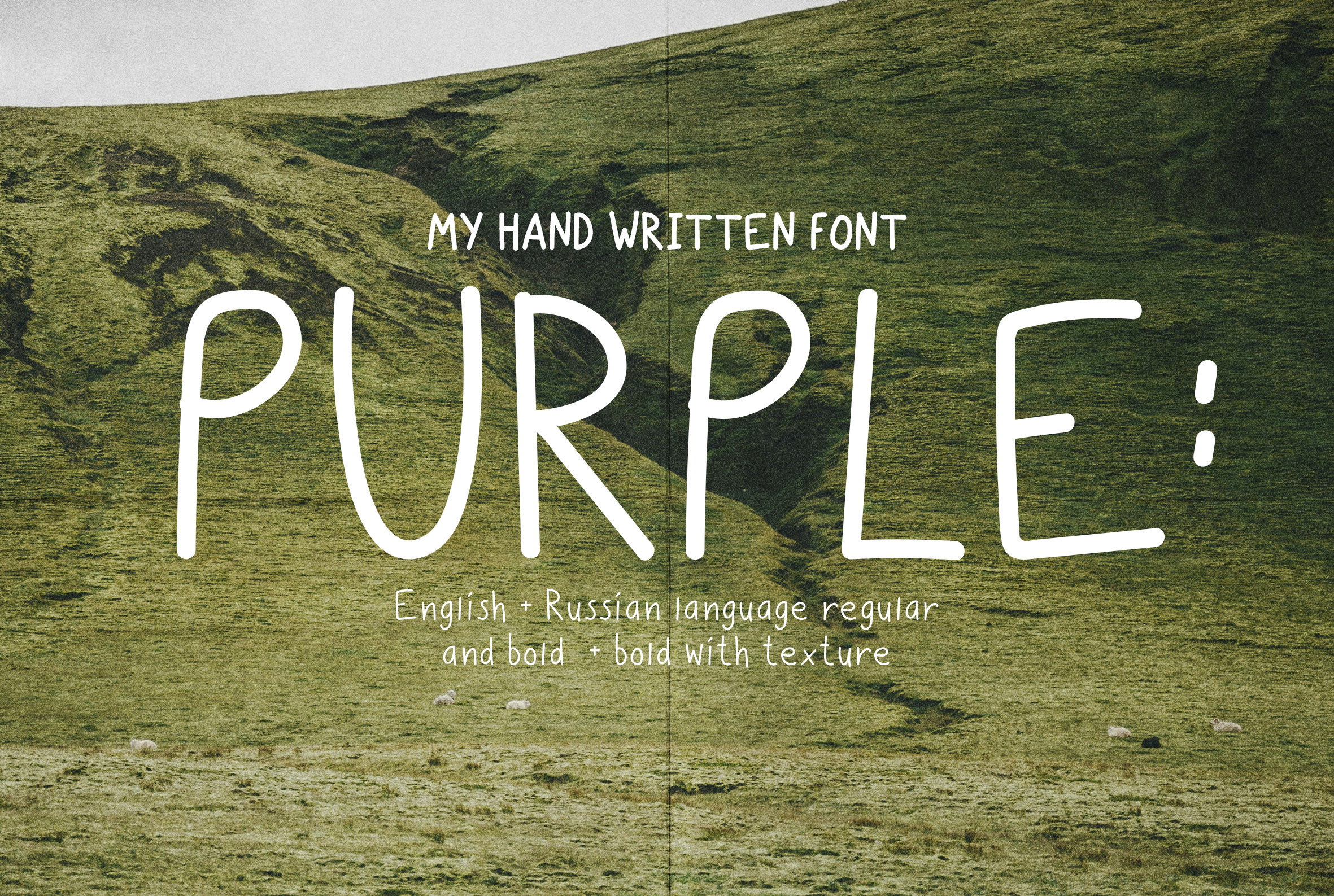
HandWritten Font
I present my new product "PURPLE"
Fashionable, lightweight and unique
this font is a mannered and fashionable handwritten sans-serif font.
PURPLE - ideal for typographic layouts, invitations, social media and website design, logos, etc. Your project will always stand out from others and will always attract attention. With this font, you can always create something unique and unique. Try it now )
Features Of The Font
- Character set A-Z, A-Я
- 2 languages (Russian and English)
- Numbers and Punctuation marks, symbols
- 2 types of writing: regular and bold (with the effect of aging)